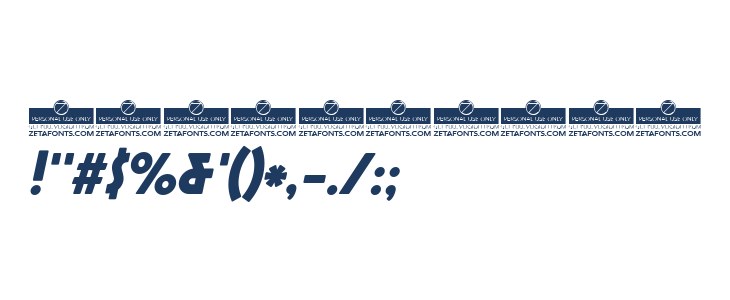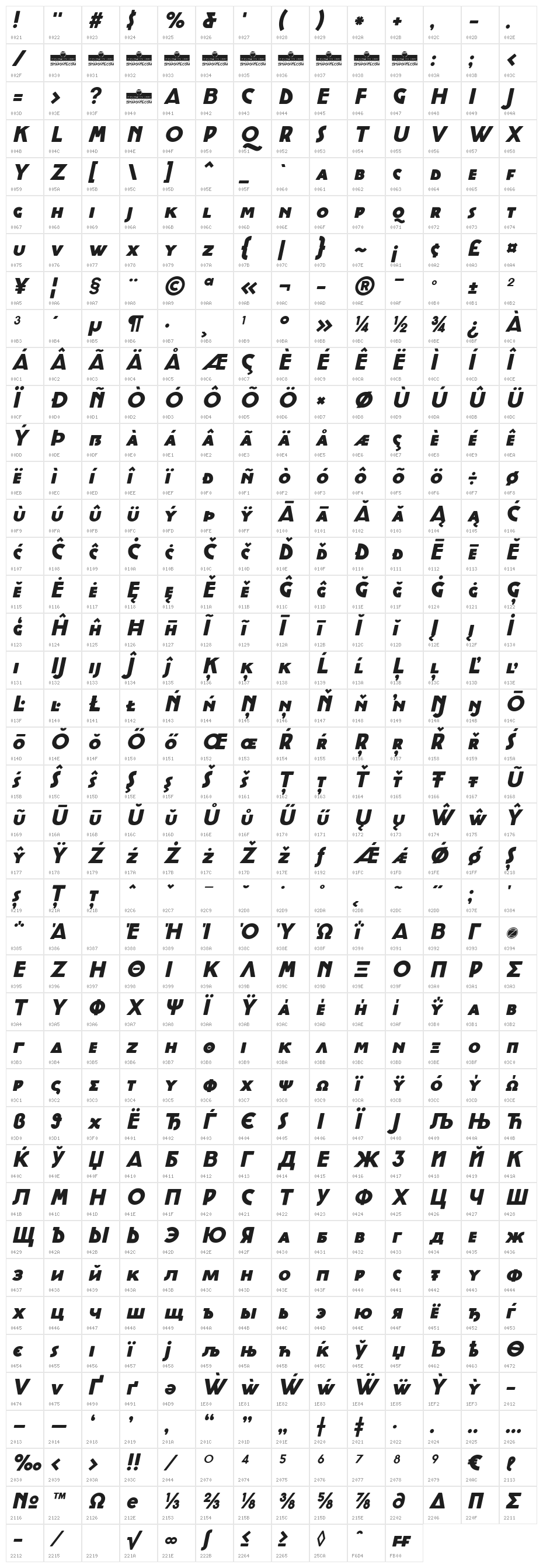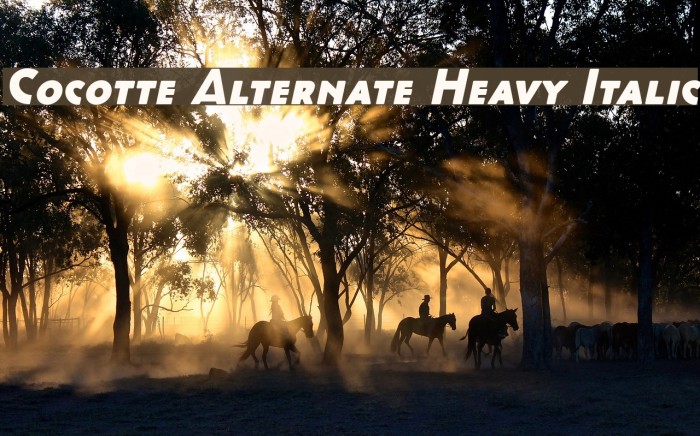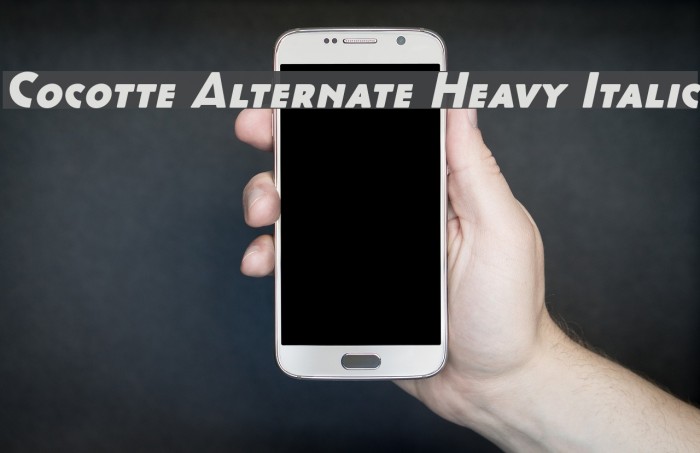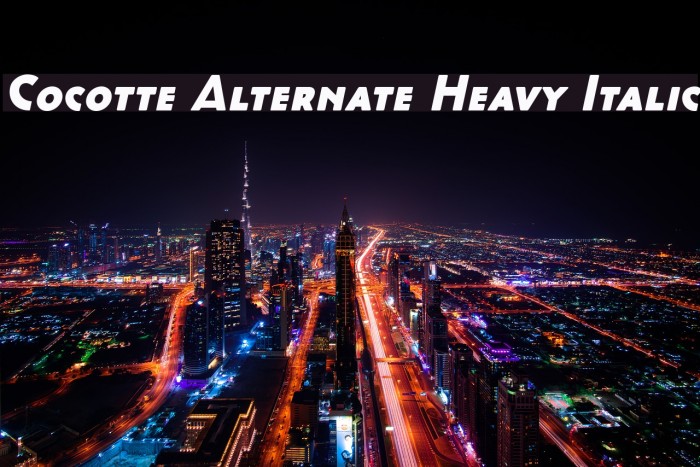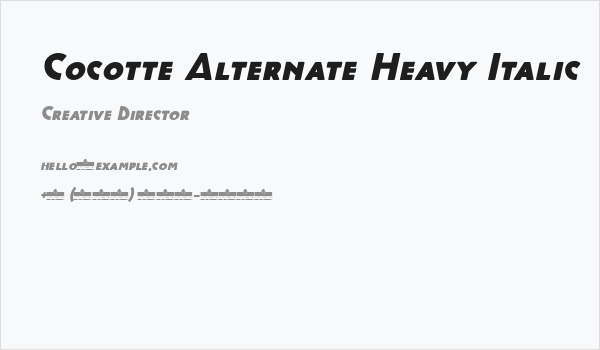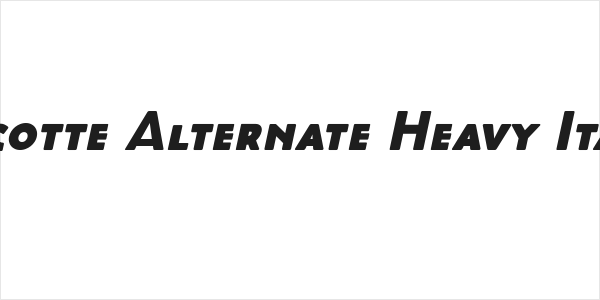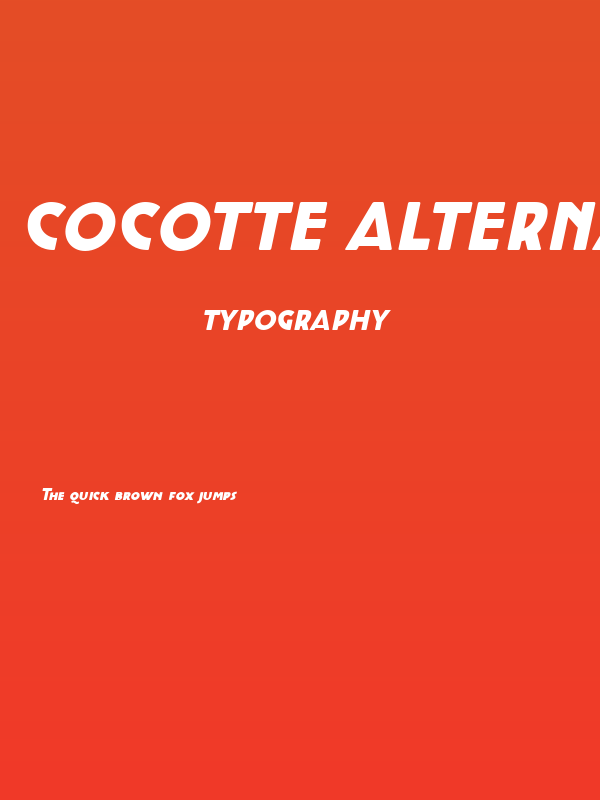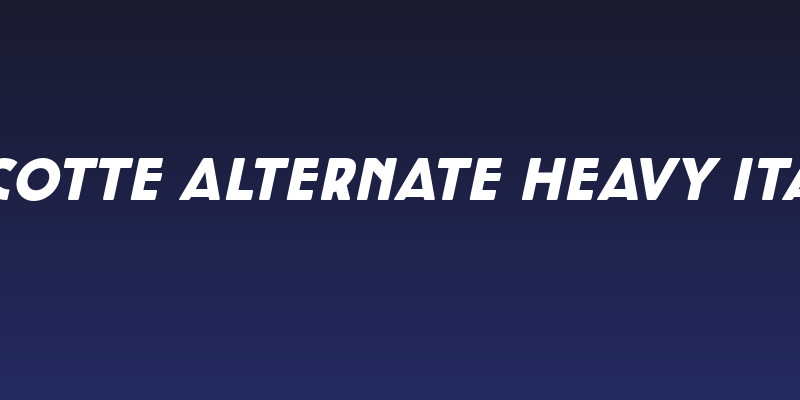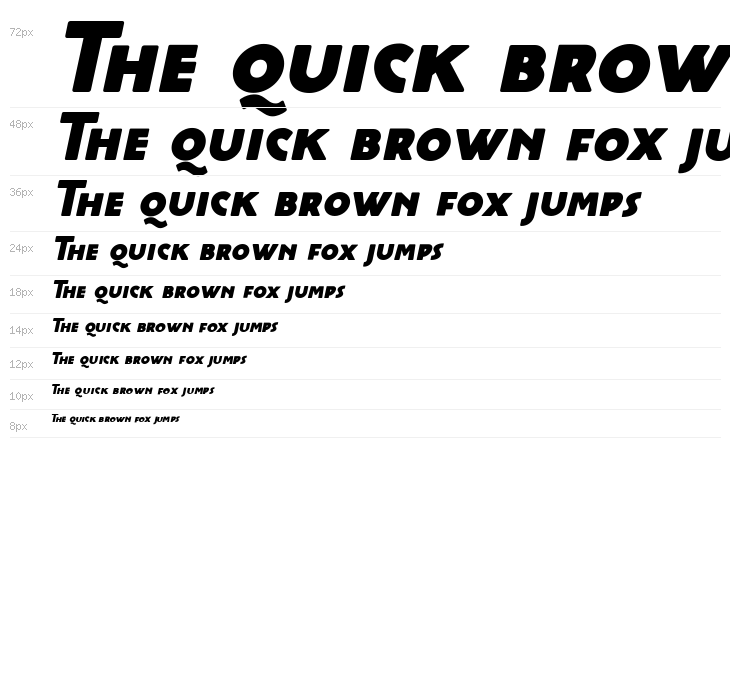
Cocotte Alternate Heavy Italic Font
Cocotte Alternate Heavy Italic Description
This font exhibits a bold and dynamic style with a strong italic slant, giving it a sense of movement and energy. The characters are thick and heavy, providing a substantial presence on the page. The strokes are consistent in weight, contributing to a uniform appearance. The design features sharp angles and clean lines, making it suitable for impactful headlines and attention-grabbing titles. The uppercase and lowercase letters maintain a cohesive look, while the special characters are crafted to match the overall aesthetic. This font's boldness and slant make it ideal for projects that require a modern and assertive typeface.